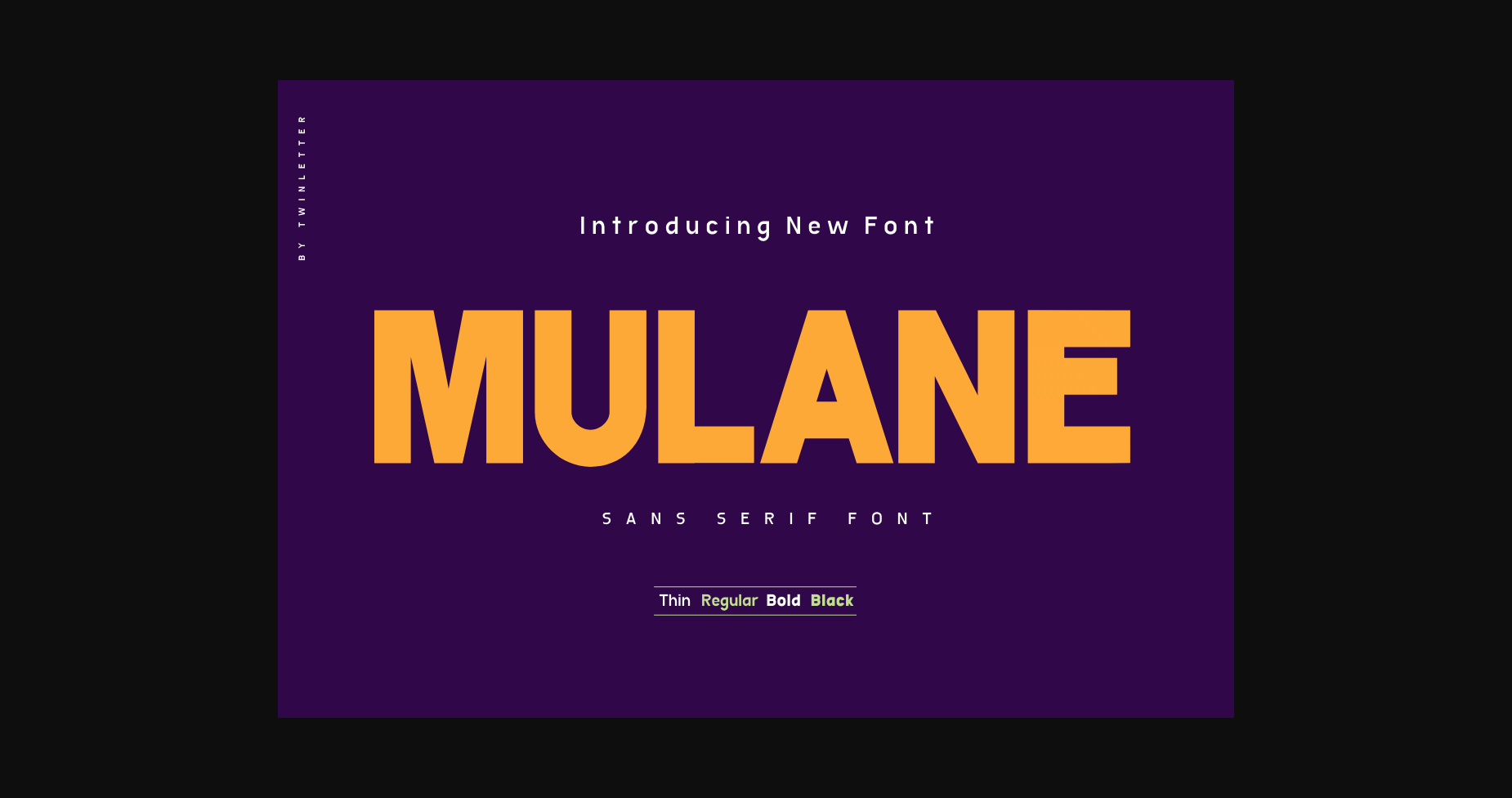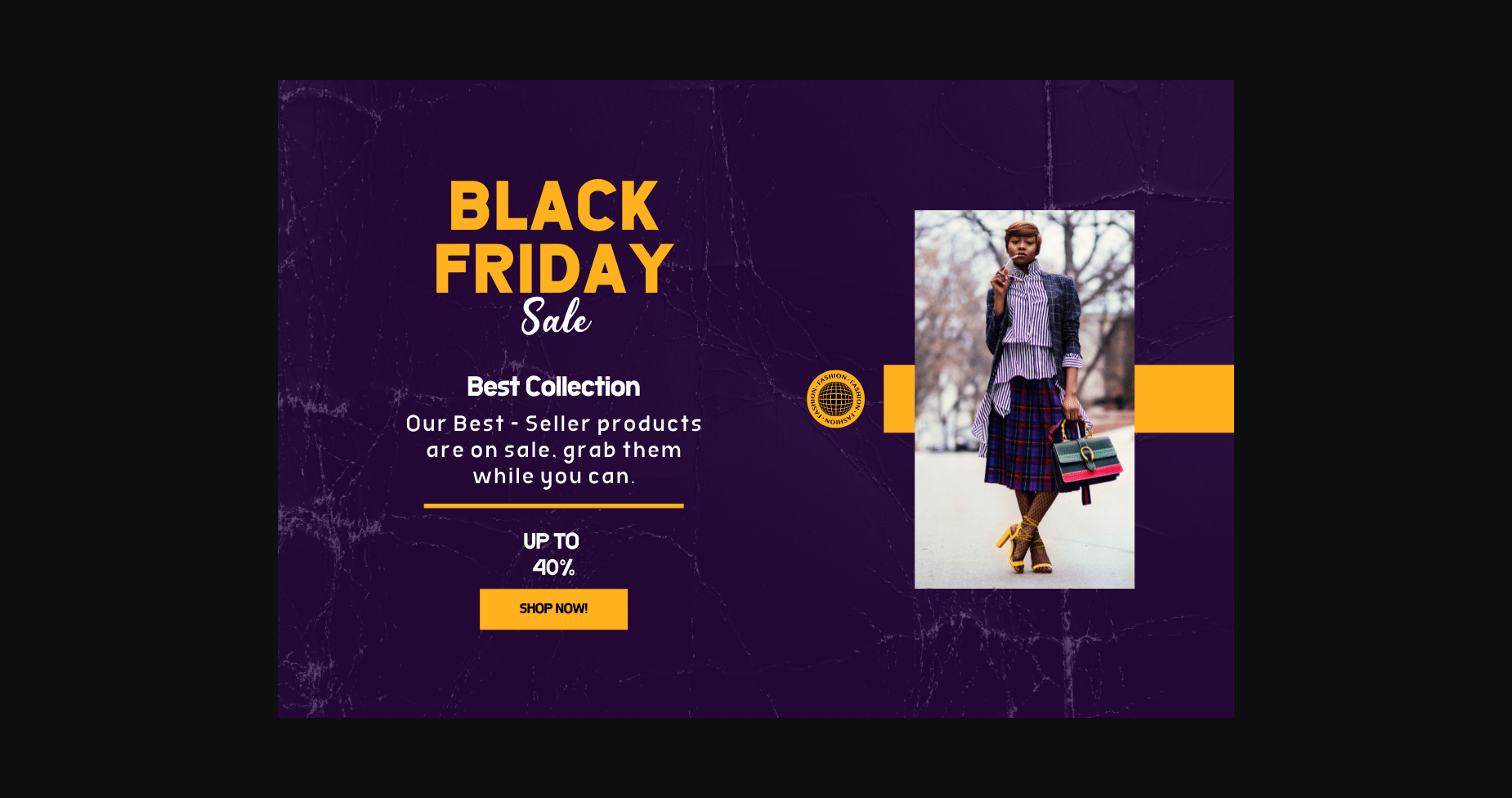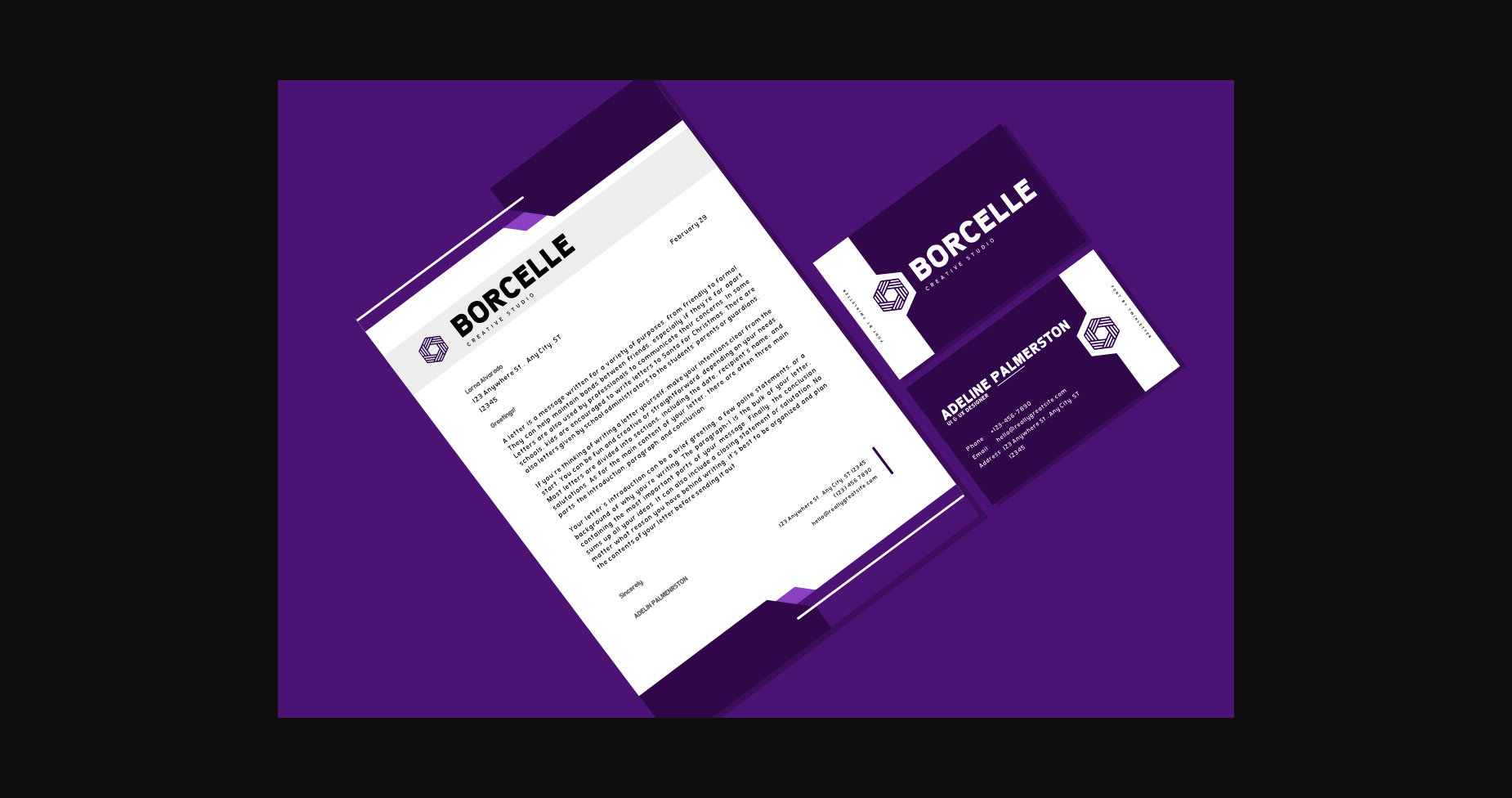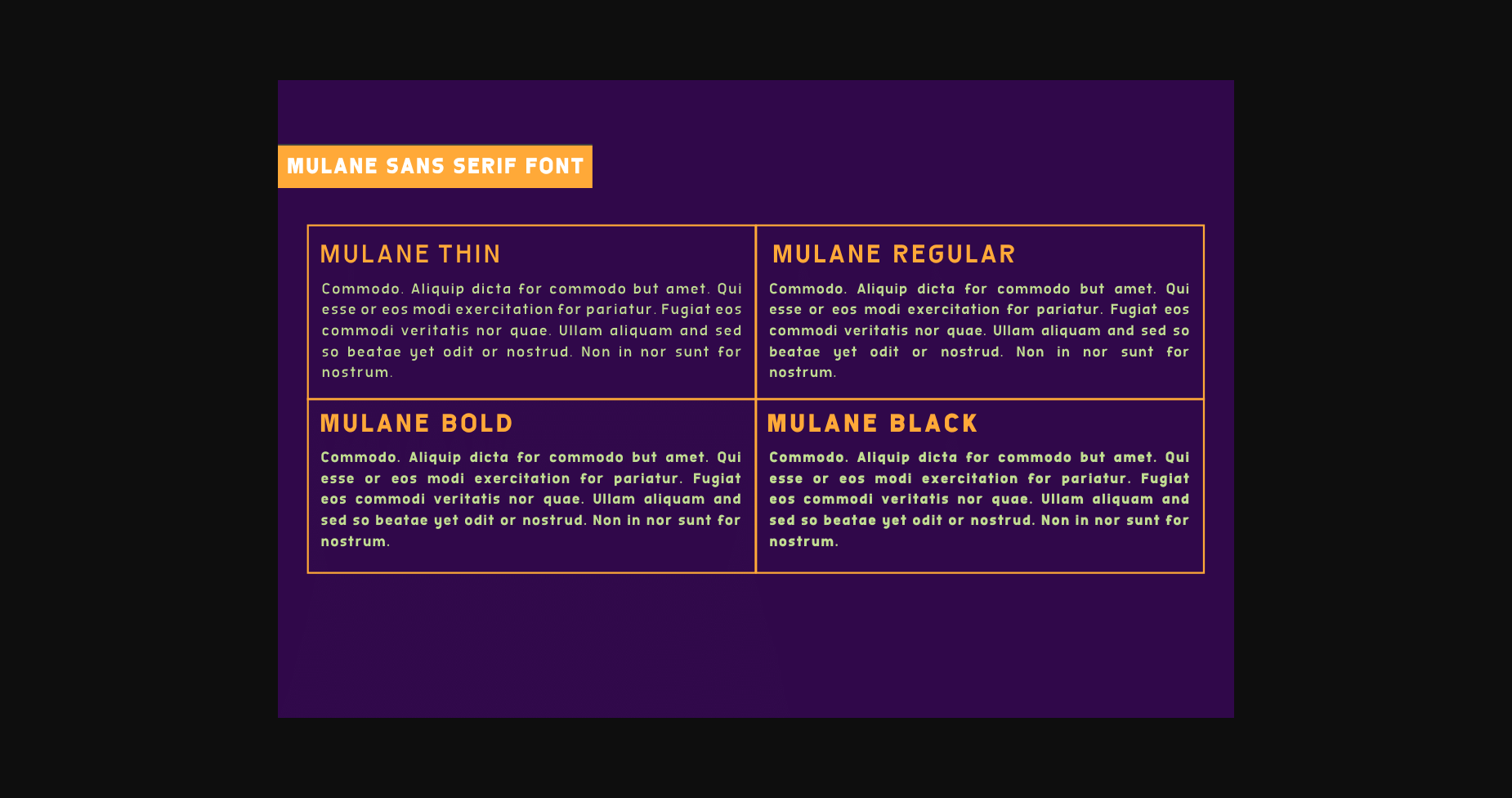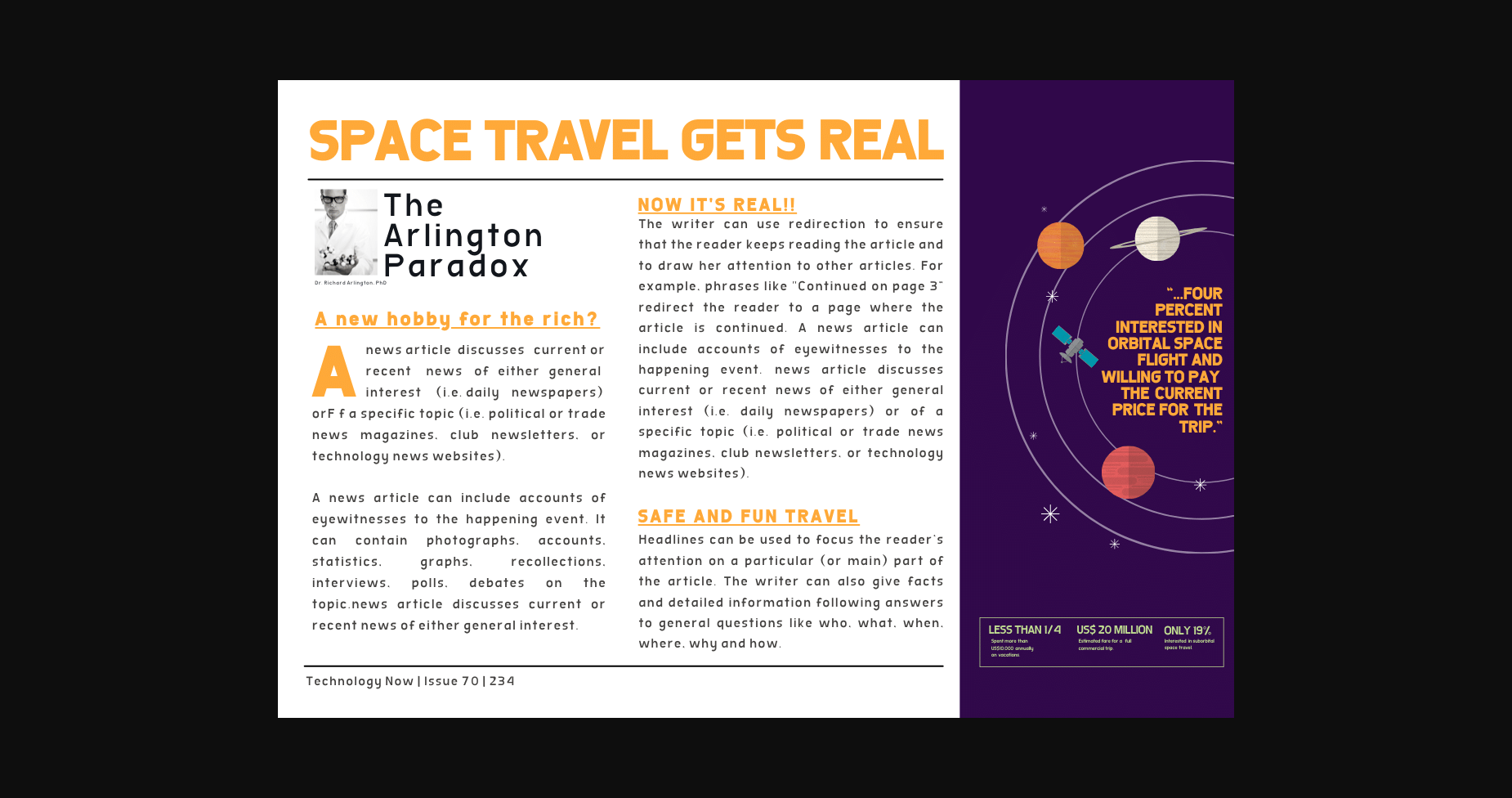
About Mulane Font
Mulane is a cool and neat sans serif font. It is perfect for any branding project such as logos, t-shirt printing, creative products, and more. It will look extraordinary in a variety of contexts.